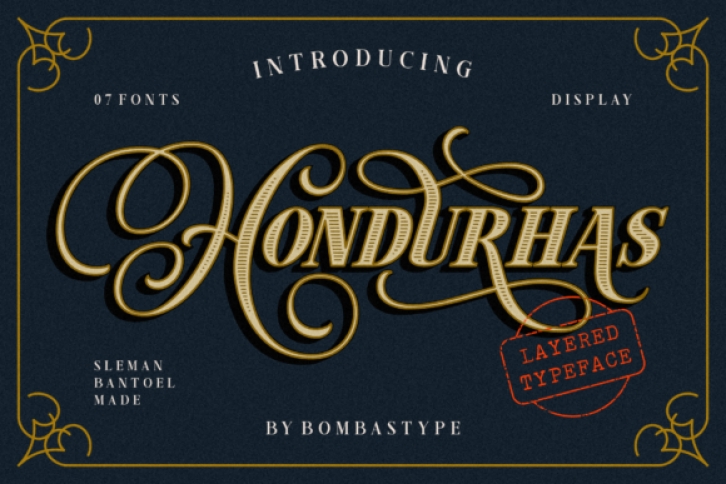
Hondurhas is a stunning retro font that will give all your creative projects an incredibly expensive and luxurious feel. This is a display font meant to invoke a sense of nostalgia and vintage style, and comes in several styles so you can layer them to fit your project’s needs.